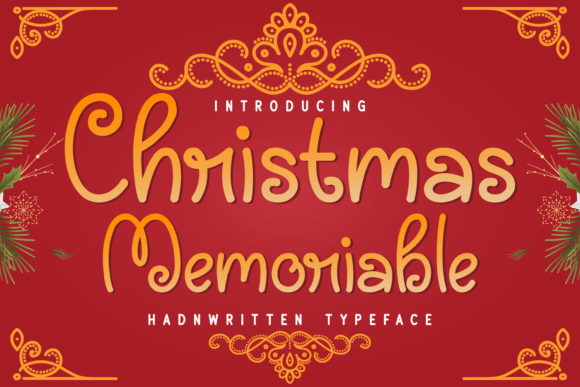
Immerse yourself in the enchantment of Christmas Memorable, a captivating script font that will ignite your creativity. With its enchanting strokes and playful curves, this font magically captures the warmth and wonder of the festive season.
Perfect for bringing a touch of wintry cheer to your designs, Christmas Memorable transforms every word into a charming masterpiece. Its playful nature dances across your screen, evoking memories of childhood dreams and spark of the holiday spirit.
But beyond its festive allure, Christmas Memorable is a versatile font, ready to elevate your creations all year round. Its enchanting characters lend an air of elegance to invitations, greeting cards, and social media posts. Unleash your imagination and let Christmas Memorable paint a picture of allure and delight in everything you create.
With its easy-to-use PUA encoding, you'll have effortless access to a world of glyphs and swashes, empowering you to add intricate details and personal touches to your designs. Each letter dances upon the page, carrying with it a touch of whimsy and a dash of festive charm.
Whether you're creating enchanting Christmas cards, charming invitations, or captivating social media posts, Christmas Memorable is the font that will turn your words into a magical celebration. Its festive spirit and versatile nature make it the perfect choice for adding a touch of enchantment to any project.
Embrace the magic of Christmas Memorable today and unlock a world of festive and creative possibilities. Let its enchanting strokes guide your imagination and bring your designs to life with a touch of holiday cheer.